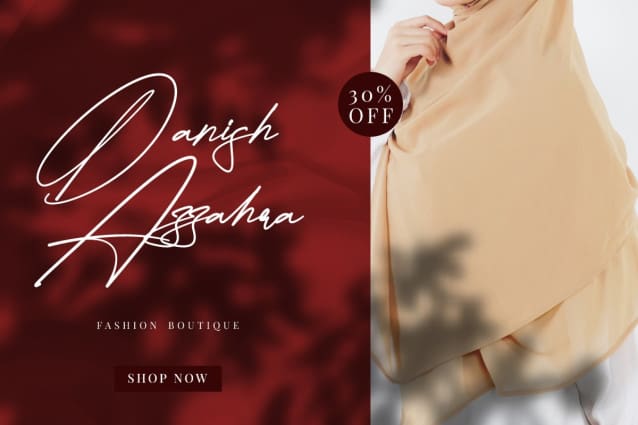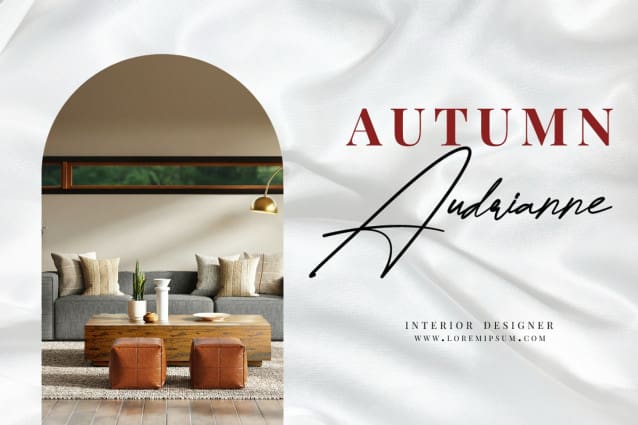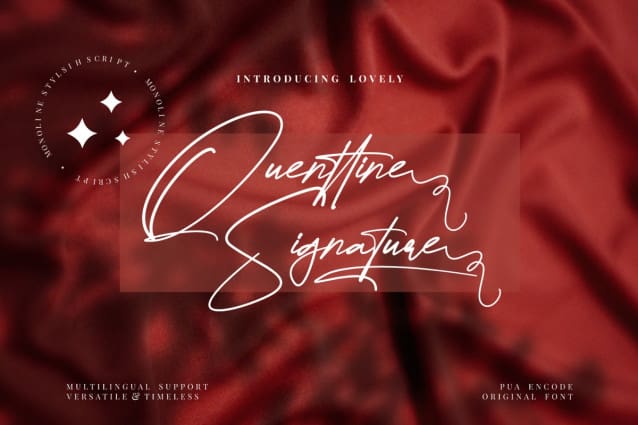
Quenttine Signature Font
Quenttine Signature Font – Monoline Signature Font , from FinTypeStudio, suitable for any projects such as: logos, branding projects, homeware designs, product packaging, mugs, quotes, posters, shopping bags, t-shirts, book covers, name card, invitation cards, greeting cards, label, photography, watermark, special events, and all your other lovely projects that need a beautiful script taste.